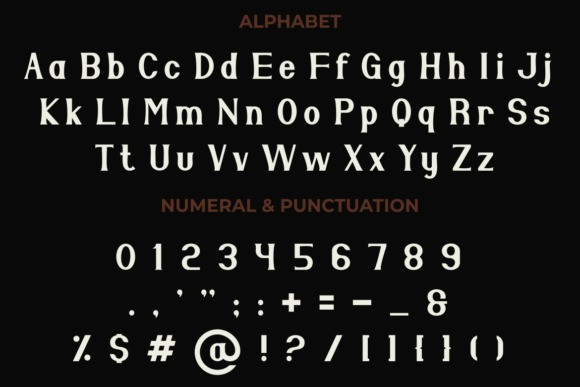
Alano Font
Alano Font is a modern, bold, and authentic serif font. The font is suitable for any branding project like logos, T-shirt printing, esports, and many more. Add it to your favorite creative projects, and it will be outstanding in a wide range of contexts.